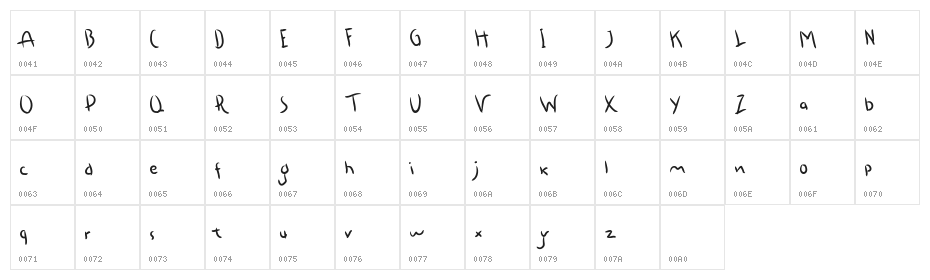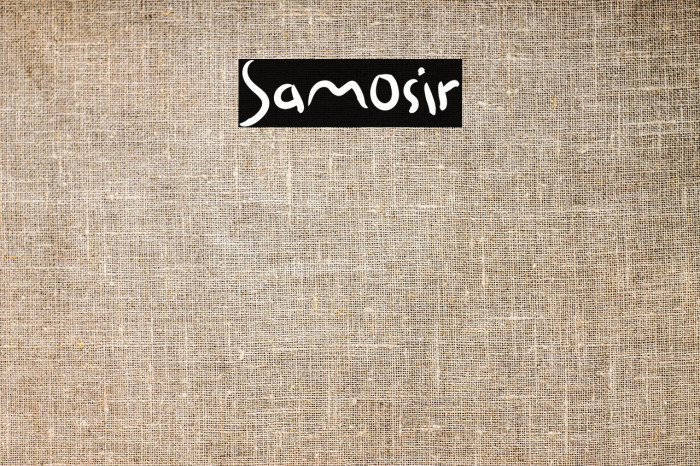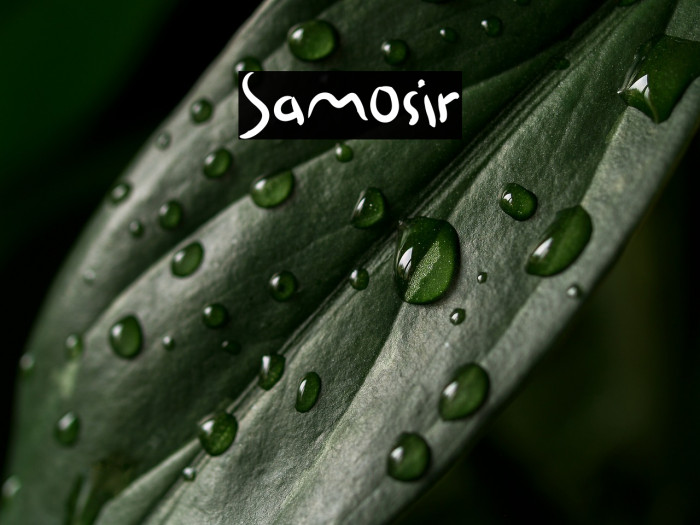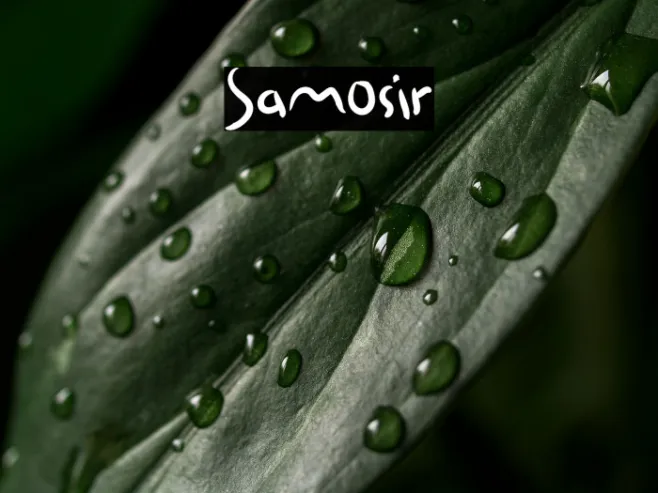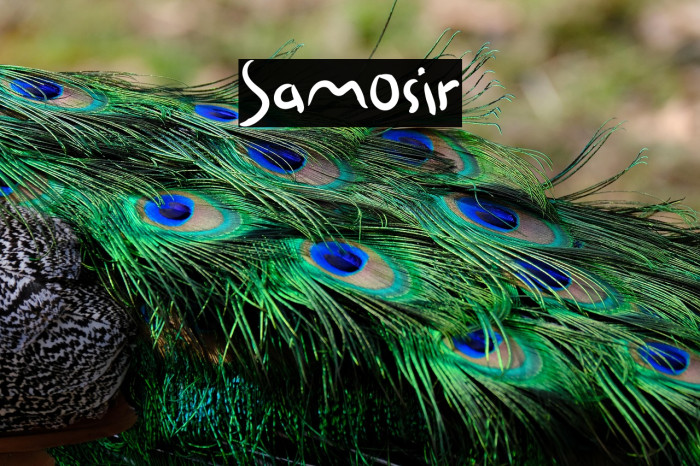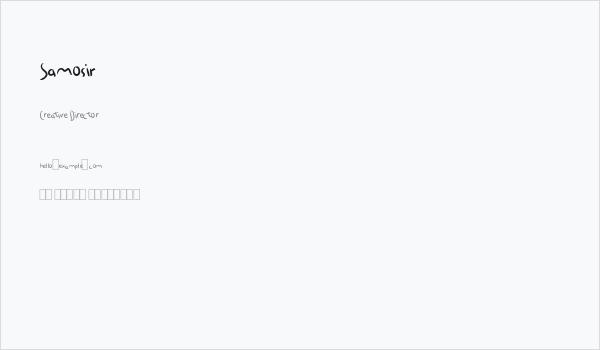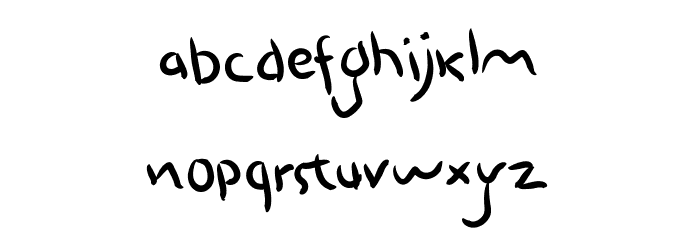
Samosir Font
Samosir Description
This font features a playful and informal handwritten style, characterized by its irregular strokes and casual appearance. The letters have a slightly uneven baseline, giving it a dynamic and lively feel. The uppercase letters are bold and prominent, while the lowercase letters maintain a consistent flow, enhancing the font's approachable nature. The overall design is reminiscent of a personal note or a quick sketch, making it ideal for projects that require a touch of personality and warmth. The font's unique charm lies in its imperfect lines and spontaneous character, making it suitable for creative and artistic endeavors.
| Use Case | Headlines, Creative projects, Informal communications |
| Proposed Projects | Ideal for greeting cards, personal blogs, creative posters, and children's book illustrations. |